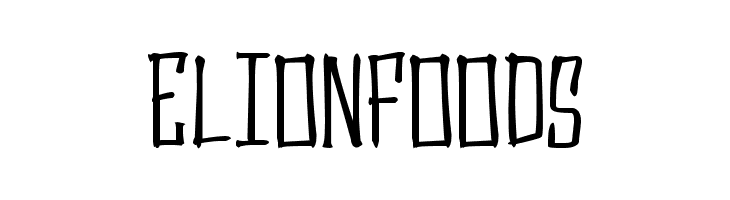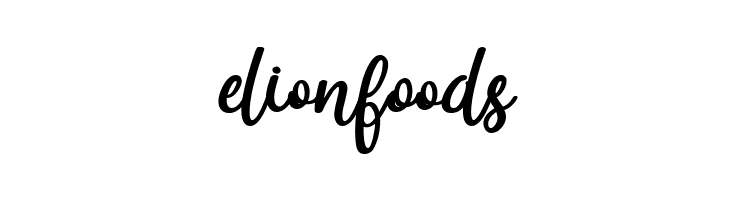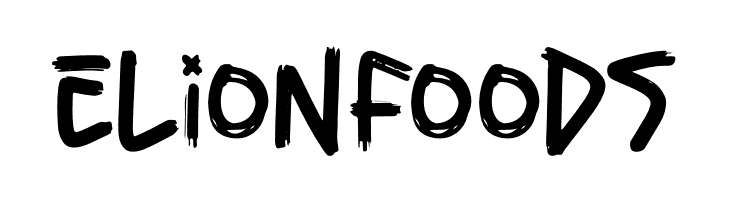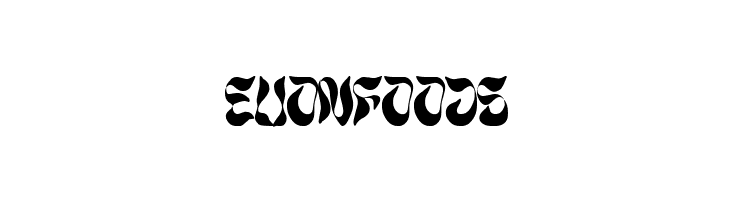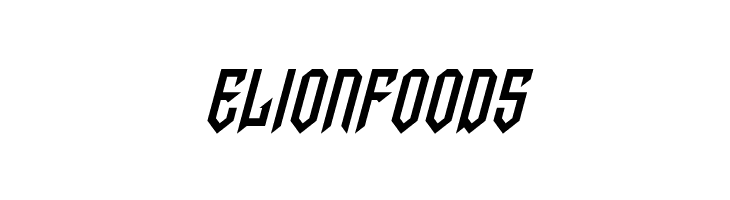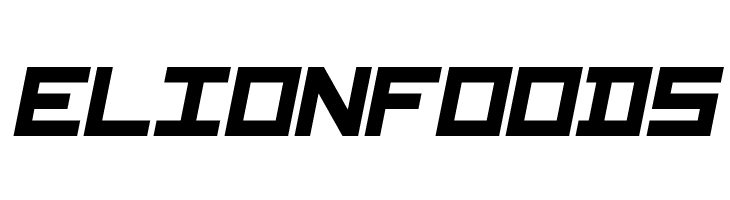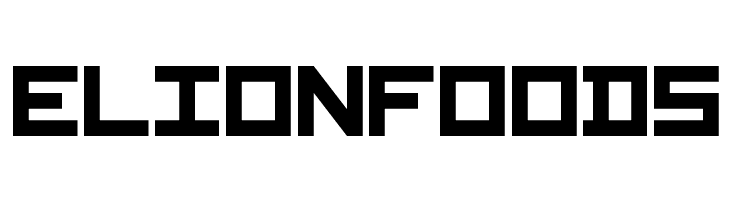
A bold, angular italic font with a dynamic and modern style.
A bold, geometric font with a modern, tech-inspired aesthetic.
A bold, hand-drawn font with an expressive and playful style.
A bold, brush-style font with a dynamic and artistic flair.
A bold, dynamic brush-style font with fluid, expressive strokes.
A bold, abstract font with dynamic, fluid strokes and artistic curves.
A stylish script font with elegant, flowing strokes and a handwritten feel.
Playful handwritten font with a casual style.
A lively and expressive script font with flowing, cursive letterforms.